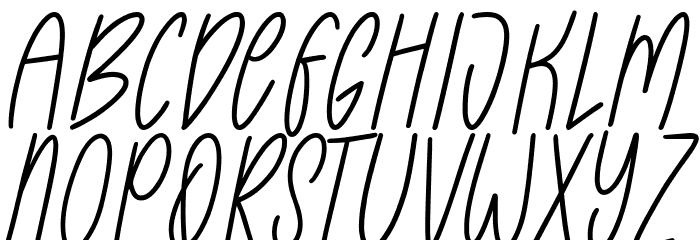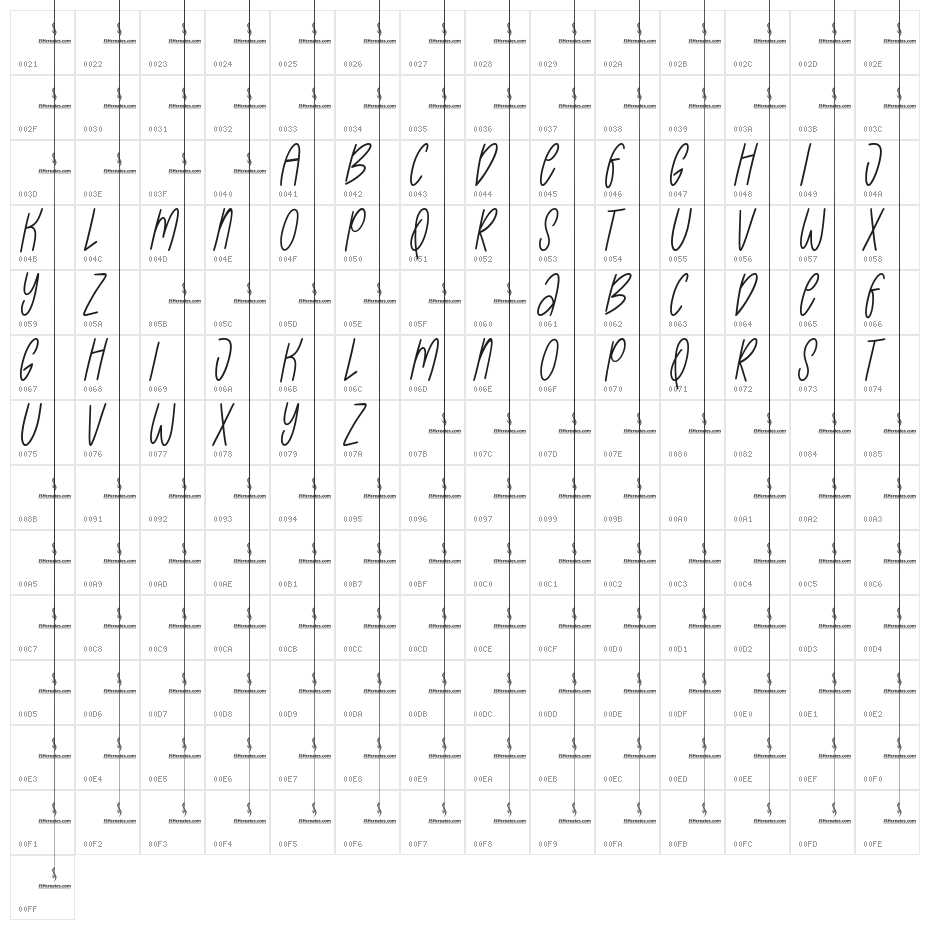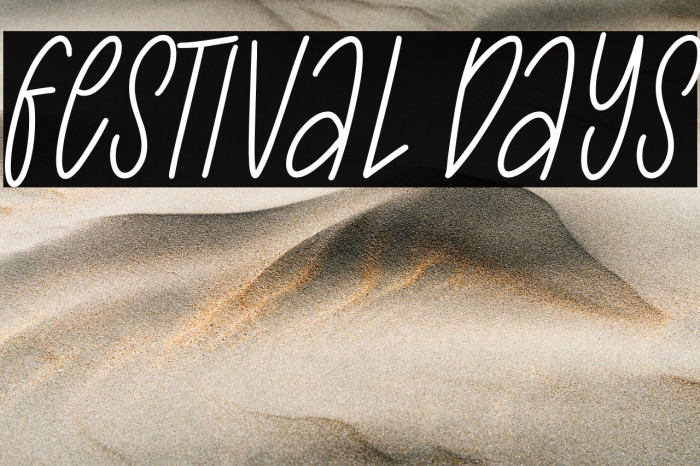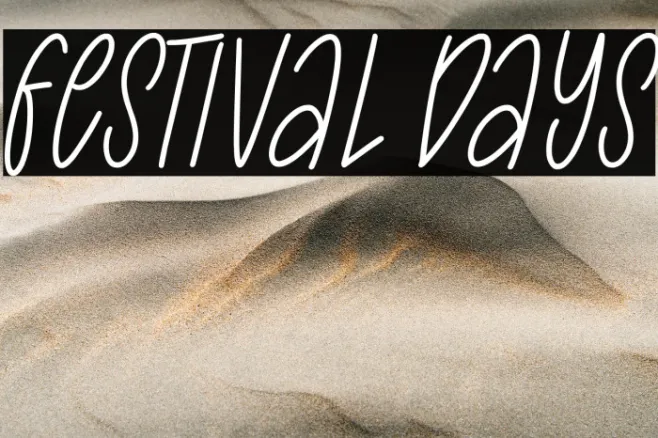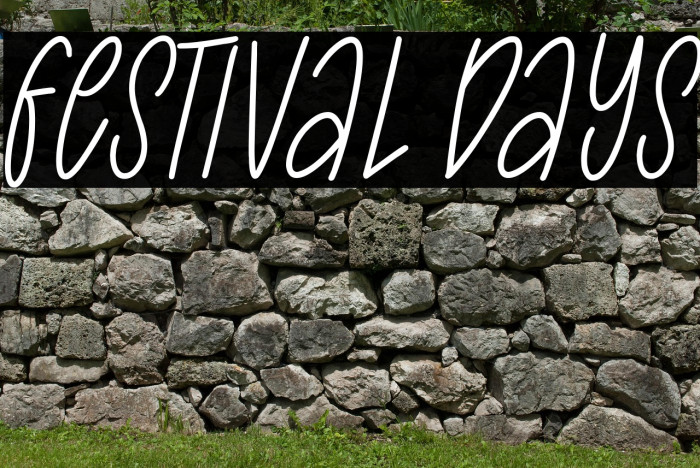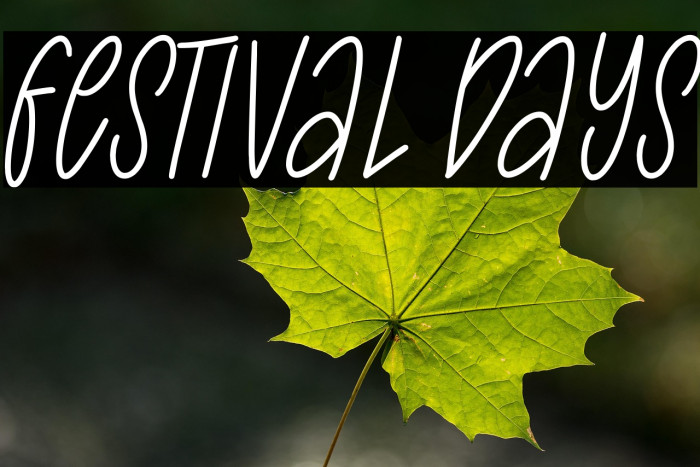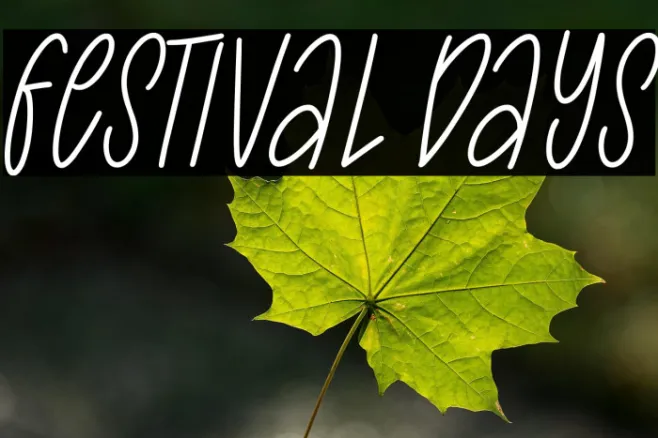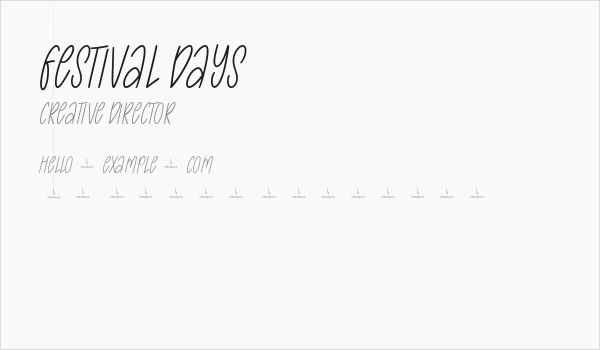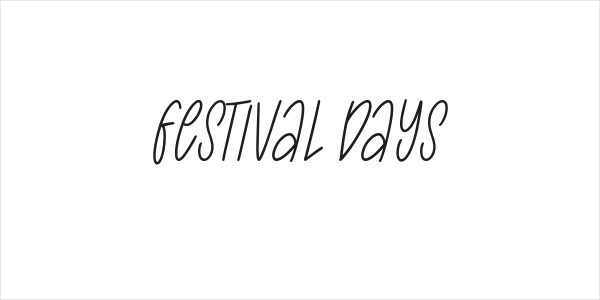
Festival Days Font
| Caso d'uso | Logos, Headlines |
| Progetti proposti | Ideal for invitations, greeting cards, and branding materials that require a personal touch. |